BR semicircles mark
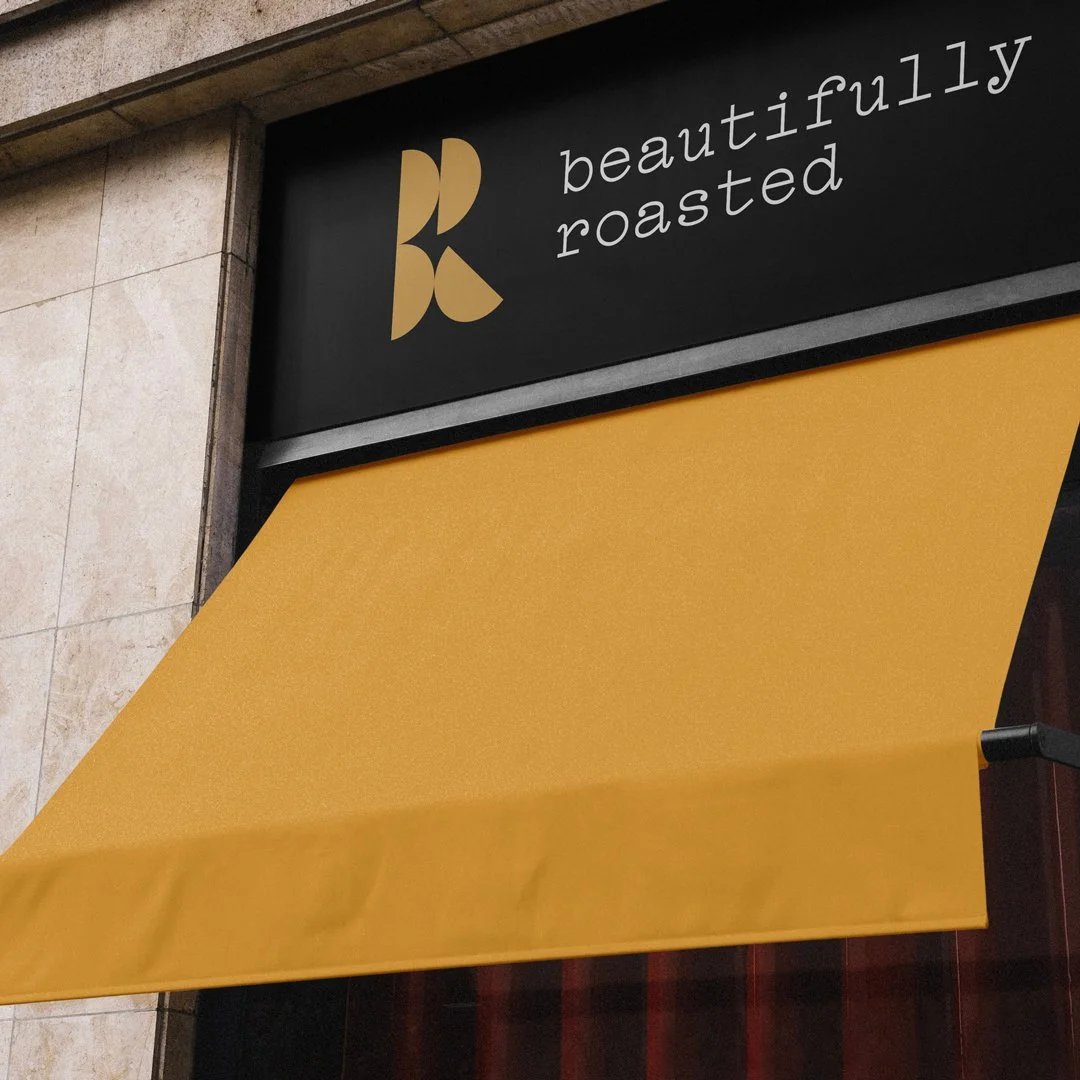
BR semicircles mark
A letter-based mark cleverly formed by 4 semicircles depicting the letter “B” and “R”. Could fit products and brands in all fields.